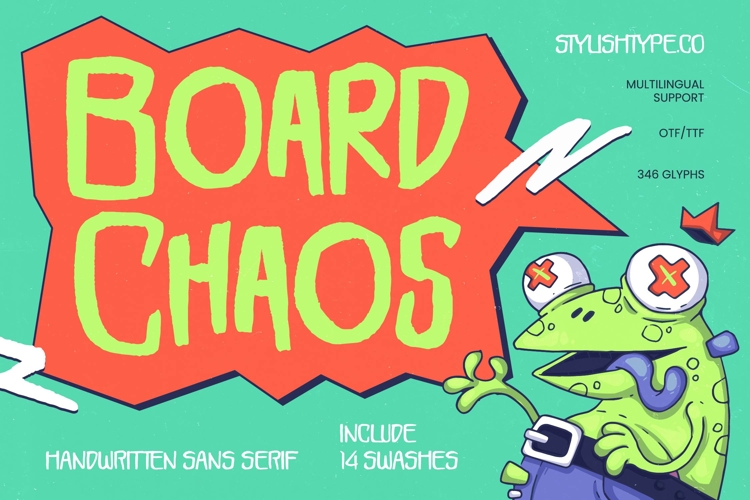
Board Chaos - Handwritten Sans Serif
Elevate your creative projects with the raw, high-energy aesthetic of Board Chaos - Handwritten Sans Serif. This typeface captures a perfect balance of hand-drawn authenticity and bold legibility, making it an essential tool for designers seeking a vibrant, urban edge. Its chunky, organic forms provide a playful rhythm that commands attention without losing its approachable, DIY-inspired charm.
Ideal for high-impact graphic design and streetwear branding, Board Chaos - Handwritten Sans Serif excels in social media marketing, poster design, and merchandise packaging. It is perfect for projects that require a dynamic personality, such as skate shop identities, comic book titling, and youth-oriented advertising where a standard, sterile font simply won't suffice.
Functionality meets artistic expression in this comprehensive digital font package. With its extensive multilingual support, Board Chaos - Handwritten Sans Serif adapts seamlessly across global markets, making it incredibly versatile for international projects. Boasting over 340 glyphs and custom swashes, it ensures that your message remains consistent and striking across a wide array of linguistic environments.